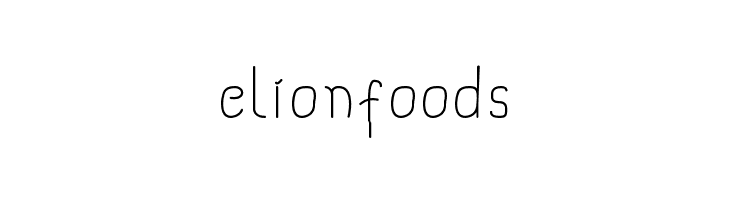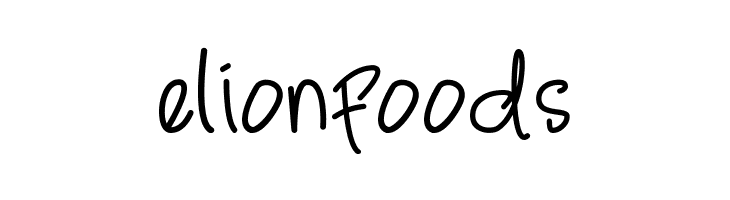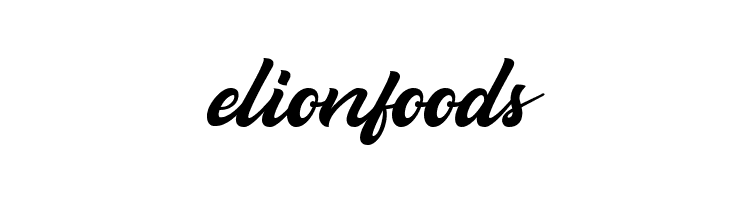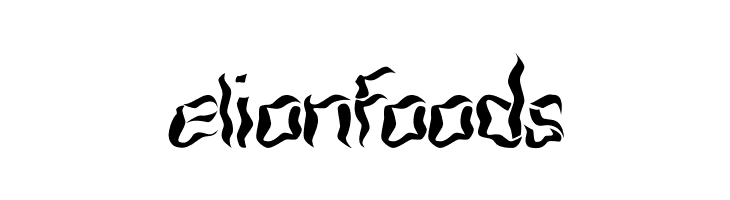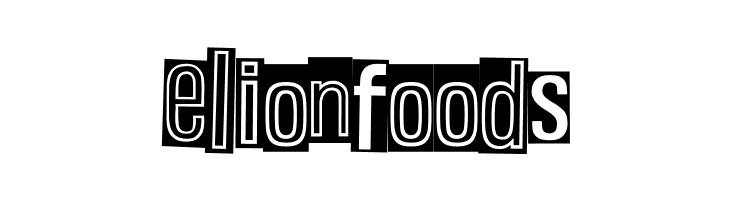
A playful, hand-drawn font with thin, elongated strokes and a whimsical style.
A fluid and elegant script font with a modern, dynamic style.
A sleek, modern, light italic font with high contrast and elegant style.
A playful, casual handwritten font with flowing strokes and rounded edges.
A dynamic, fluid script font with elegant, flowing cursive letters.
A decorative font with flame-like, artistic edges and a fluid, organic style.
A dynamic and fluid script font with a modern, playful style.
A playful, rounded font with bold, smooth curves.
A bold, dynamic font with a playful, cut-out style.